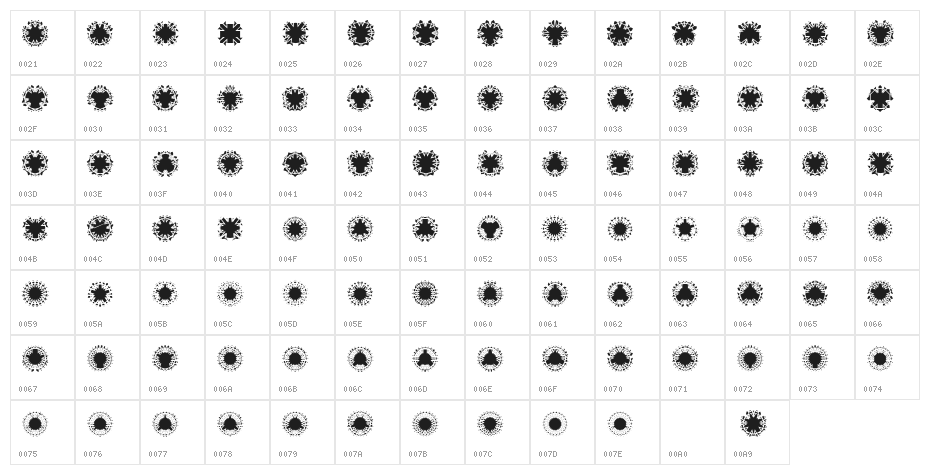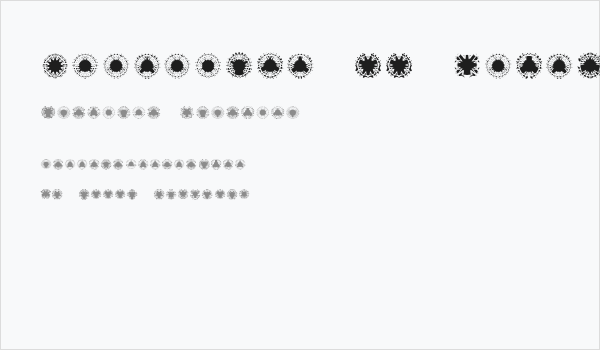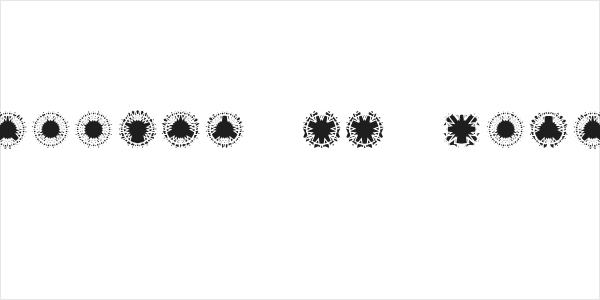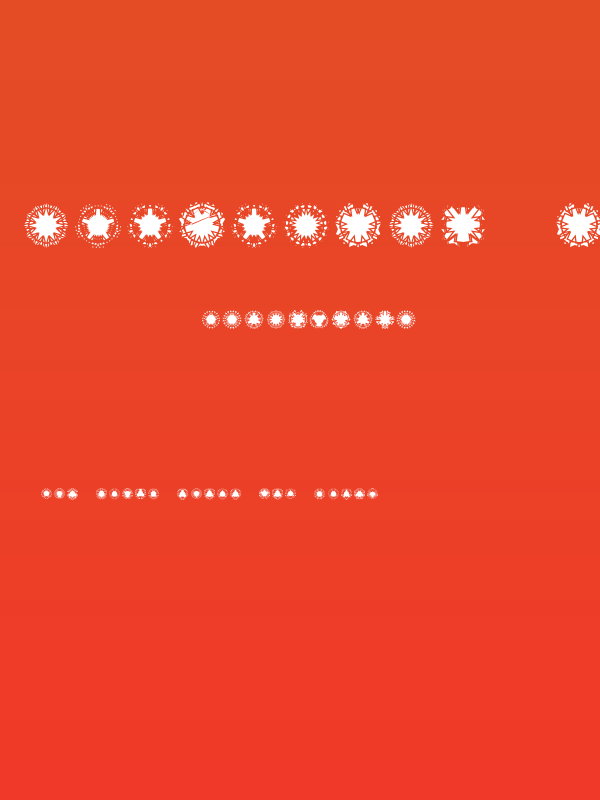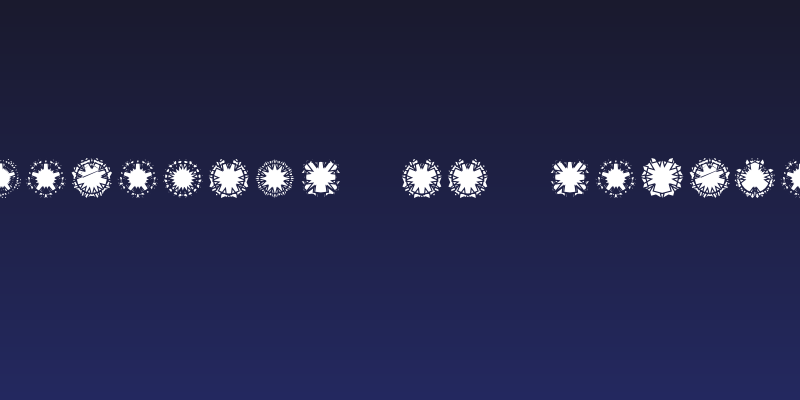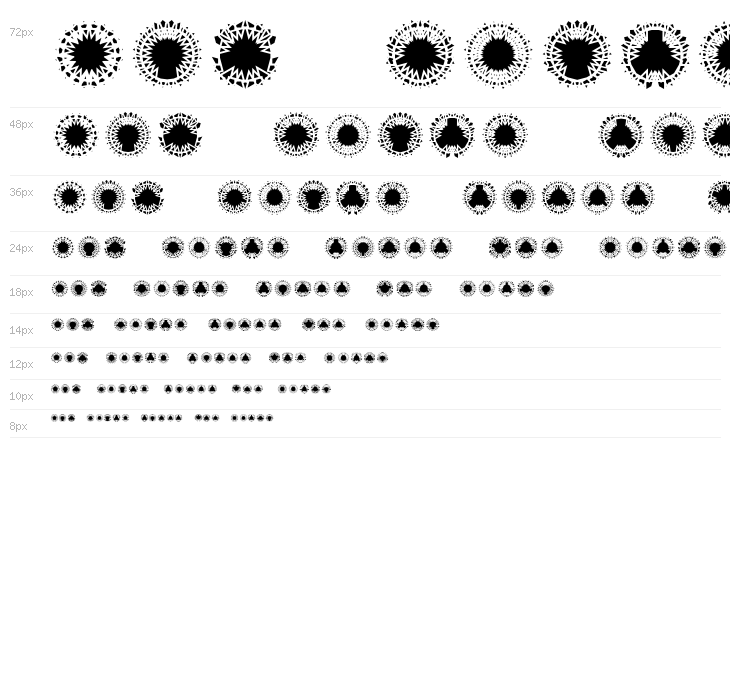
Ovulution II Nucleus Font
Ovulution II Nucleus Description
This font features a highly decorative and abstract design, with each character resembling a unique, intricate pattern. The characters are composed of complex shapes and forms, giving them a dynamic and artistic appearance. The design is reminiscent of organic or cosmic motifs, with each letter and number appearing as a distinct, standalone piece of art. The overall aesthetic is bold and eye-catching, making it suitable for projects that require a strong visual impact. The font's unique style makes it ideal for creative and experimental designs.
| Use Case | Logos, Posters, Artistic projects |
| Proposed Projects | Ideal for artistic projects, album covers, posters, and experimental design work. |